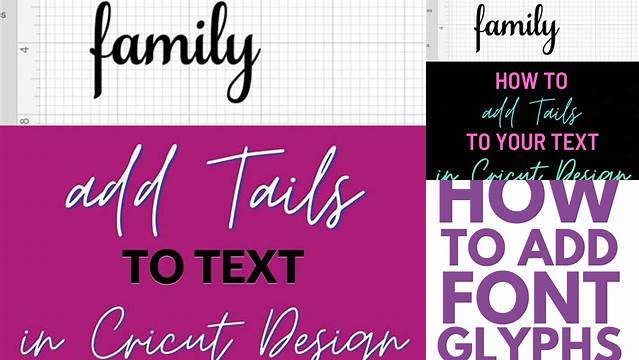
Cricut Tail Fonts: Design Space Guide
Hey Cricut crafters! Ever wanted to add a touch of elegance and flair to your projects? Fonts with tails, also known as swash fonts, are the perfect way to do just that. They add a beautiful, flowing finish to your text, making your designs look professional and eye-catching. But how do you use these gorgeous fonts in Cricut Design Space? Don't worry, guys, we've got you covered! This guide will walk you through everything you need to know, from finding the right fonts to using them effectively in your projects. So, let's dive in and start creating some stunning designs!
Understanding Fonts with Tails
Before we jump into the technical stuff, let's talk a bit more about fonts with tails. What exactly are they, and why are they so popular? These fonts, often called swash fonts, feature decorative extensions or strokes (the "tails") that add a unique and sophisticated touch to your text. They're perfect for a variety of projects, from wedding invitations and greeting cards to logos and personalized gifts. The tails can be subtle and elegant or bold and dramatic, depending on the font style. Using fonts with tails can instantly elevate your design, giving it a polished and professional look. The beauty of these fonts lies in their ability to transform simple text into a visual masterpiece. They add a touch of personality and flair, making your projects stand out from the crowd. Whether you're a seasoned crafter or just starting out, incorporating fonts with tails into your designs is a fantastic way to enhance your creativity and produce truly stunning results. The versatility of these fonts makes them a must-have in any designer's toolkit. So, get ready to explore the world of swash fonts and discover how they can transform your Cricut projects!
Finding Fonts with Tails for Cricut
Now that you understand the allure of fonts with tails, the next step is to find some great ones to use in your Cricut Design Space. Luckily, there are tons of resources available, both free and paid. When searching for fonts with tails, keep in mind that not all fonts are created equal. You'll want to consider the style of the font, the size of the tails, and how well it cuts with your Cricut machine. Many websites offer a wide variety of fonts with tails, including Creative Fabrica, DaFont, and FontBundles. These sites often have filters that allow you to search specifically for script fonts or fonts with swashes. Additionally, Cricut Design Space itself has a selection of fonts, some of which include tails. However, the selection is more limited compared to external resources. When downloading fonts from external websites, always make sure they are compatible with Cricut Design Space and that you have the appropriate license for your intended use (e.g., personal or commercial). Don't be afraid to experiment with different fonts and styles to find the perfect match for your project. A little bit of research can go a long way in finding hidden gems that will take your designs to the next level.
Using Glyphs for Font Tails in Cricut Design Space
Alright, let's talk about glyphs! Glyphs are essentially the special characters and variations within a font, including those beautiful tails we're so eager to use. Many fonts with tails don't automatically display the tails when you type; instead, these tails are hidden within the font's glyphs. So, how do you access them in Cricut Design Space? Unfortunately, Design Space doesn't have a built-in glyph panel, which means you'll need to use a separate program to find and copy the glyphs. For Windows users, Character Map is a handy built-in tool. Mac users can use Font Book. These programs allow you to view all the glyphs within a font, including those lovely swashes and tails. To use a glyph, simply find it in the program, copy it, and then paste it into your text in Cricut Design Space. It might seem like an extra step, but it's the key to unlocking the full potential of your fonts with tails. There are also third-party software options available that offer a more user-friendly glyph browsing experience, such as PopChar or NexusFont. Experiment with different glyphs to create unique and personalized designs. The possibilities are endless once you start exploring the hidden characters within your fonts!
Welding and Grouping Font Tails in Cricut Design Space
Now that you're adding those gorgeous fonts with tails to your designs, let's talk about welding and grouping – two essential steps for ensuring your text cuts out perfectly on your Cricut. When you're working with script fonts with tails, the letters often overlap. If you don't weld them, your Cricut will cut each letter individually, resulting in a disjointed and messy final product. Welding essentially merges the overlapping letters into a single shape, so your Cricut cuts one continuous line. This is especially important for those flowing tails, as you want them to seamlessly connect to the rest of the letter. To weld in Cricut Design Space, select your text, go to the bottom right panel, and click the "Weld" button. Before welding, make sure you're happy with the spacing and placement of your letters, as welding is a permanent action. If you need to make adjustments after welding, you'll need to undo the weld and start again. Grouping, on the other hand, is a non-permanent way to keep your letters together while you're working on your design. Grouping simply keeps the letters together as a single unit, allowing you to move and resize them easily. However, grouping doesn't merge the letters like welding does. So, remember: weld for cutting, group for editing! Mastering these two functions will ensure your fonts with tails look absolutely stunning on your finished projects.
Best Fonts with Tails for Cricut Projects
Okay, let's get down to the fun part: recommendations! There are so many amazing fonts with tails out there, it can be hard to choose. But don't worry, we've rounded up some of our favorites that work beautifully with Cricut. When selecting fonts with tails for Cricut projects, consider the overall style you're going for. Are you aiming for elegant and sophisticated, or fun and whimsical? For a classic and elegant look, consider fonts like Samantha Script or Adelina Script. These fonts have graceful swashes and beautiful letterforms that are perfect for wedding invitations, cards, and personalized gifts. If you're looking for something a bit more modern and playful, Sweet Pea or Better Together are great options. These fonts have cute and quirky tails that add a touch of personality to your projects. Don't forget to check out free font websites like DaFont or FontSpace for budget-friendly options. You might be surprised at the hidden gems you can find! Remember to always test cut your fonts before committing to a large project, especially with intricate tails. This will help you ensure that your Cricut can handle the cuts and that your design will turn out perfectly. Experiment with different fonts and find the ones that you love and that work well with your crafting style. Happy font hunting!
Cricut Design Space Font Limitations
While Cricut Design Space is a powerful tool, it's important to be aware of its font limitations, especially when working with fonts with tails. As we've mentioned before, Design Space doesn't have a built-in glyph panel, which means you'll need to use external software to access the special characters and swashes in your fonts with tails. This can be a bit of a workaround, but it's a necessary step for unlocking the full potential of these fonts. Another limitation is the font preview in Design Space. Sometimes, the preview doesn't accurately display the tails or swashes, so it's crucial to test cut your fonts before committing to a final design. This will help you avoid any unpleasant surprises when your Cricut starts cutting. Design Space also has a character limit for text boxes, which can be frustrating when working with long phrases or names. If you exceed the character limit, you'll need to break your text into multiple text boxes, which can make editing a bit more cumbersome. Despite these limitations, Cricut Design Space is still a fantastic platform for working with fonts with tails. By being aware of these limitations and using the workarounds we've discussed, you can create stunning designs that showcase the beauty of swash fonts. So, don't let these limitations discourage you – embrace the challenge and get creative!
Troubleshooting Font Tails in Cricut Design Space
Okay, sometimes things don't go exactly as planned, and you might encounter some issues when working with fonts with tails in Cricut Design Space. Don't panic! We're here to help you troubleshoot some common problems and get your projects back on track. One common issue is that your newly installed font isn't showing up in Design Space. As we mentioned earlier, the first thing to try is restarting Cricut Design Space. This often resolves the issue by allowing the software to recognize the new font. If that doesn't work, double-check that the font is correctly installed on your computer's operating system. Another common problem is that the tails or swashes aren't displaying correctly. This usually means you need to access the glyphs, which, as we've discussed, requires using an external program like Character Map (Windows) or Font Book (Mac). If your font is cutting out jagged or uneven, it could be due to the font's complexity or your Cricut's blade. Try using a sharper blade or slowing down your cutting speed. It's also a good idea to test cut a small sample of your font before cutting your entire design. By systematically troubleshooting each potential issue, you can overcome any challenges and achieve beautiful results with your fonts with tails. Remember, crafting is all about experimentation and learning, so don't be afraid to try different solutions until you find what works best for you!
Designing Wedding Invitations with Tail Fonts
Let's get inspired! One of the most popular uses for fonts with tails is designing wedding invitations. These fonts add an air of elegance and romance to your invitations, making them truly special. When designing wedding invitations, consider the overall style and theme of the wedding. A classic script font with delicate tails, like Samantha Script or Adelina Script, is perfect for a traditional or formal wedding. For a more modern or rustic wedding, you might opt for a font with bolder tails or a more playful style, like Sweet Pea or Better Together. The key is to choose a font that complements the overall aesthetic of the wedding. In addition to the font itself, think about the layout and design elements of your invitation. A simple and elegant layout with plenty of white space can really showcase the beauty of your fonts with tails. Consider adding decorative elements like flourishes or borders to further enhance the design. Don't forget to pay attention to the details, such as the paper stock, ink color, and envelope. These elements can all contribute to the overall look and feel of your invitations. With a little creativity and attention to detail, you can create stunning wedding invitations that your guests will cherish. Using fonts with tails is a fantastic way to add a personal touch and make your invitations truly unforgettable.
Creating Personalized Gifts with Tail Fonts
Looking for a way to make your gifts extra special? Fonts with tails are the perfect way to add a personal touch to personalized gifts. Whether you're creating a custom mug, a personalized tote bag, or a heartfelt home decor item, fonts with tails can elevate your design and make it truly unique. The possibilities are endless when it comes to personalized gifts. Think about the recipient's personality and style when choosing a font. A delicate script font with elegant tails is perfect for a sophisticated friend or family member, while a bolder font with playful tails might be more appropriate for someone with a fun and quirky personality. Consider the type of gift you're personalizing as well. For a mug or a tote bag, you might want to use a bolder font that will stand out. For a framed print or a piece of home decor, a more delicate font might be a better choice. When designing your personalized gift, think about the placement of the text and any other design elements you want to include. A simple and clean design is often the most effective, but don't be afraid to experiment with different layouts and styles. Using fonts with tails on personalized gifts is a wonderful way to show someone you care and create a lasting keepsake. The thoughtfulness and effort you put into creating a personalized gift will truly be appreciated.
Designing Logos with Tail Fonts in Cricut
If you're looking to create a logo that stands out, fonts with tails can be an excellent choice. They add a touch of sophistication and personality to your brand, making your logo memorable and eye-catching. Designing a logo with fonts with tails requires careful consideration of your brand identity and target audience. Think about the overall message you want to convey with your logo. A delicate script font with elegant tails might be perfect for a brand that wants to project a sense of luxury or refinement. A bolder font with more dramatic tails could be a better choice for a brand that wants to appear strong and confident. It's also essential to consider the readability of your logo. While fonts with tails can be beautiful, they can also be challenging to read if the tails are too elaborate or the font is too small. Make sure your logo is clear and legible in various sizes and formats. When designing your logo, experiment with different font combinations and layouts. You might want to pair your fonts with tails with a simpler sans-serif font for a balanced and modern look. Consider adding other design elements, such as icons or graphics, to further enhance your logo. A well-designed logo is an essential part of your brand identity. By using fonts with tails creatively and strategically, you can create a logo that truly represents your brand and helps you stand out from the competition.
Monogramming Projects with Fonts Featuring Tails
Monogramming is a classic way to personalize items, and fonts with tails add a touch of elegance and sophistication to your monograms. Whether you're monogramming a tote bag, a towel, or a piece of home decor, using a font with tails can elevate your project and make it truly special. When choosing a fonts with tails for monogramming, consider the style of the item you're monogramming and the overall aesthetic you're going for. A delicate script font with graceful tails is perfect for a classic and timeless look, while a bolder font with more dramatic tails might be more appropriate for a modern or trendy item. Think about the letter arrangement as well. Traditional monograms typically feature the last name initial in the center, slightly larger than the first and middle name initials. However, you can also experiment with different arrangements and styles to create a unique and personalized monogram. When designing your monogram, pay attention to the spacing between the letters and the size of the tails. You want the monogram to be clear and legible, but you also want the tails to be visible and add a touch of flair. Consider using a contrasting color for your monogram to make it stand out against the background of the item. Monogramming with fonts with tails is a wonderful way to add a personal touch to your belongings or create a thoughtful and personalized gift. The elegance and sophistication of swash fonts will make your monograms truly stand out.
Card Making Ideas Using Fonts with Swashes
Creating handmade cards is a heartfelt way to show someone you care, and fonts with tails are the perfect way to add a touch of elegance and personality to your card designs. Whether you're making a birthday card, a thank you card, or a holiday card, using a font with swashes can elevate your design and make it truly special. When choosing a fonts with tails for your cards, consider the occasion and the recipient. A delicate script font with graceful tails is perfect for a formal occasion, such as a wedding or an anniversary, while a more playful font with quirky tails might be more appropriate for a birthday or a casual greeting. Think about the overall design of your card as well. You might want to use the font as the main focal point of the card, or you might want to combine it with other design elements, such as images, patterns, or embellishments. Consider the color scheme of your card as well. Using contrasting colors can make your font stand out, while using complementary colors can create a more harmonious look. Don't be afraid to experiment with different layouts and styles to create a unique and personalized card. Using fonts with tails in your card making projects is a wonderful way to express your creativity and show your loved ones how much you care. The elegance and beauty of swash fonts will make your cards truly stand out.
Scrapbooking with Decorative Fonts
Scrapbooking is a wonderful way to preserve memories, and decorative fonts add an extra layer of personality and charm to your scrapbook pages. Fonts with tails are an excellent choice for scrapbooking, as they bring an elegant and artistic touch to your layouts. When selecting decorative fonts for your scrapbook, think about the theme of your scrapbook and the overall style you want to achieve. For a vintage-themed scrapbook, consider fonts with a classic or handwritten feel. For a modern scrapbook, you might opt for bolder fonts with unique tails or embellishments. The font should complement the photos and other elements on your page, enhancing the story you're telling. In scrapbooking, font size and placement are key. Use larger fonts for titles and headings to draw attention, and smaller fonts for captions and journaling. Play with different font combinations to create visual interest. Consider using fonts with tails for titles and simpler fonts for the body text to ensure readability. Don't overload your page with too many different fonts, as this can make it look cluttered. Incorporate decorative fonts not just for text, but also as design elements. You can cut out font shapes and use them as embellishments, or layer fonts over photos for a unique effect. Remember to weld your fonts before cutting them to ensure smooth, continuous cuts, especially for intricate tails. By thoughtfully incorporating fonts with tails into your scrapbooking, you can create beautiful, personalized pages that truly capture your memories.
Tips for Readable Text with Swash Lettering
While fonts with swashes are undeniably beautiful, readability is crucial, especially in design projects where clear communication is key. Achieving the perfect balance between decorative flair and legibility is essential. When using swash lettering, start by selecting fonts with relatively clean and clear letterforms. Extremely ornate swashes can sometimes overwhelm the text, making it difficult to read. Look for fonts where the tails enhance the letters without obscuring them. Consider the size of your text. Smaller text sizes require simpler fonts, as intricate swashes can become illegible at a small scale. Use larger sizes when the design allows to fully showcase the swash lettering. Spacing is also vital for readability. Increase the letter spacing and line spacing to give the swashes room to breathe and prevent the text from looking crowded. Experiment with different spacing options to find the optimal balance. Choose contrasting colors between the text and the background. A dark font on a light background or vice versa ensures the text stands out. Avoid color combinations that are difficult to read, such as light text on a light background. Limit the number of swashes you use. Overusing swash lettering can make your text look cluttered and difficult to process. Use swashes sparingly, highlighting key words or phrases. Test your design by showing it to others and asking for feedback on readability. Fresh eyes can often spot issues you might have missed. Remember, the goal is to create a design that is both visually appealing and easy to read. By following these tips, you can effectively incorporate fonts with swashes into your projects while ensuring your message is clear.
Combining Tail Fonts with Other Font Styles
The art of typography often lies in the harmonious combination of different font styles. When working with tail fonts, pairing them thoughtfully with other fonts can create visually appealing and balanced designs. The key is to achieve contrast and hierarchy without creating a jarring effect. One effective strategy is to pair tail fonts with clean, simple sans-serif fonts. The elegance of a swash script complements the modern simplicity of a sans-serif, creating a sophisticated contrast. For example, use a swash font for a title or heading and a sans-serif font for the body text. Another approach is to combine tail fonts with classic serif fonts. This pairing works well when you want to convey a sense of tradition and refinement. A serif font with its structured letterforms provides a stable base, while the swash font adds a touch of flair. Limit the number of fonts you use in a design. Generally, two or three fonts are sufficient to create visual interest without overwhelming the viewer. Too many fonts can make a design look cluttered and unprofessional. Establish a clear visual hierarchy by using different font sizes and weights. Use larger sizes and bolder weights for headings and smaller sizes and lighter weights for body text. This helps guide the reader's eye and creates a structured layout. Pay attention to font compatibility. Some fonts simply don't work well together. Look for fonts that share similar characteristics or styles, such as the same x-height or stroke width. Test your font combinations by creating mockups and viewing them in different sizes and contexts. This helps you assess how well the fonts work together in practice. Experiment with different pairings until you find combinations that you love. Typography is both a science and an art, so trust your eye and have fun exploring the possibilities. By mastering the art of font pairing, you can create designs that are both beautiful and effective.
Creating Layered Designs with Fonts Featuring Tails
Layered designs add depth and visual interest to your projects, and using fonts featuring tails can elevate this technique even further. Layering involves combining different design elements, such as fonts, shapes, and images, to create a multidimensional effect. When working with fonts featuring tails in layered designs, consider how the swashes interact with other elements. Use tails to create flow and movement in your design, or to emphasize certain areas. Layering different fonts can create a dynamic effect. Try layering a swash font over a simpler font to highlight certain words or phrases. Ensure that the layered fonts complement each other in style and weight. Incorporate shapes and other graphical elements into your layered design. Use shapes to frame your text, create backgrounds, or add visual interest. Consider how the shapes interact with the tails of your fonts, creating a cohesive and balanced design. Experiment with color and texture in your layered designs. Use different colors to create contrast and depth, and add textures to give your design a tactile feel. For example, you could layer a swash font cut from glitter cardstock over a solid-colored background. Use shadows and highlights to enhance the layered effect. Adding subtle shadows behind fonts or shapes can create the illusion of depth, making your design pop. Consider using different cutting materials to add dimension. For example, layering cardstock, vinyl, and even fabric can create a rich, textured design. Remember to plan your layers carefully. Start with a base layer and gradually add elements on top, ensuring that each layer contributes to the overall design. Think about the order in which you want to cut and assemble your layers to make the process as efficient as possible. Layered designs can be complex, so don't be afraid to experiment and try new techniques. By mastering layering, you can create stunning projects with depth, dimension, and visual appeal.
Using Different Colors for Fonts With Tail Accents
Color is a powerful design tool, and when used strategically with fonts with tail accents, it can enhance the visual impact and readability of your projects. Applying different colors to specific parts of your font can draw attention to key elements and create a more dynamic design. One technique is to color the tail accents differently from the main body of the font. This can highlight the decorative swashes and add a touch of elegance. For instance, using a metallic or glitter color for the tails can make them stand out beautifully. Consider the color palette of your overall design. Choose colors that complement each other and create a cohesive look. A limited color palette often works best, as too many colors can make your design look cluttered. Use color to create visual hierarchy. For example, a bolder color for the main text and a softer color for the tail accents can help guide the viewer's eye and emphasize important information. Think about the mood you want to convey. Warm colors (reds, oranges, yellows) tend to be energetic and inviting, while cool colors (blues, greens, purples) are often associated with calmness and sophistication. Choose colors that align with the tone of your project. Experiment with color gradients for a modern and eye-catching effect. Gradient fills can add depth and dimension to your fonts, making them stand out even more. Use the slice tool in Cricut Design Space to separate the tail accents from the main font. This allows you to apply different colors to each part. Test your color combinations by viewing your design in different lighting conditions. Colors can appear differently depending on the light, so it's important to ensure your choices look good in various settings. Don't be afraid to experiment with unconventional color combinations. Sometimes, unexpected pairings can create the most striking results. By mastering the art of color, you can transform your fonts with tail accents into stunning focal points in your designs.
Optimizing Font Tails for Cutting Machines
Getting perfect cuts with fonts tails on your cutting machine is crucial for a polished final product. The intricate details of swash letters can sometimes pose a challenge, but with the right techniques and settings, you can achieve clean, precise cuts every time. The first step is to choose the right font. Fonts with excessively thin or overly elaborate tails may be difficult for your machine to cut cleanly. Opt for fonts with balanced proportions and sturdy swashes. Ensure your blade is sharp and in good condition. A dull blade can tear or drag, resulting in jagged cuts. Regularly clean your blade and replace it when necessary. Adjust your cutting machine settings to suit the material you're using. Different materials require different pressure and speed settings. Always test cut a small sample before committing to the full design. Use the correct mat for your material. A sticky mat is essential for holding the material in place during cutting, especially for intricate designs. Clean your mat regularly to maintain its stickiness. Weld your script fonts before cutting. Welding merges overlapping letters into a single shape, preventing the machine from cutting each letter individually and creating clean, continuous cuts. Reduce the cutting speed for intricate designs. Slower speeds allow the machine to navigate complex shapes more accurately, minimizing the risk of tearing or jagged edges. Consider using the